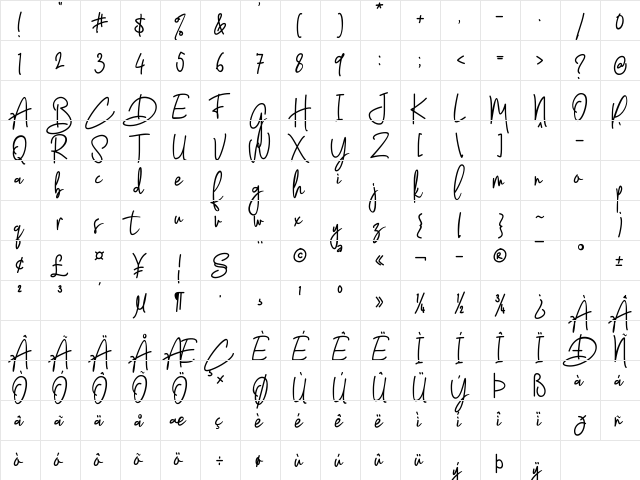
Latter Slant Regular
Design Context for Latter Slant Typeface
Latter Slant is a composed and adaptable typeface that performs quietly and consistently across a wide range of design contexts.